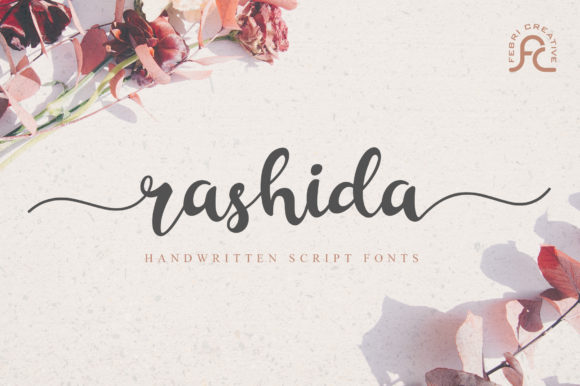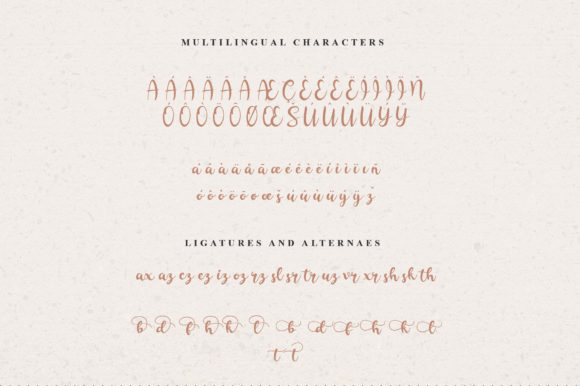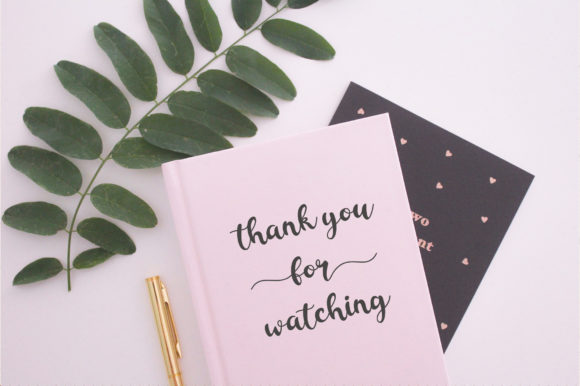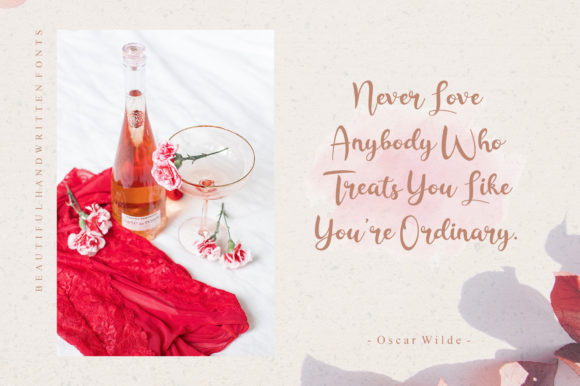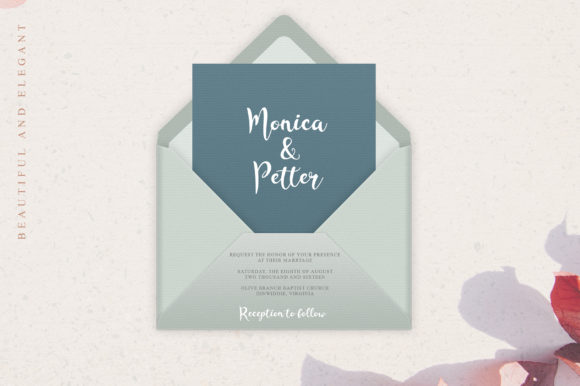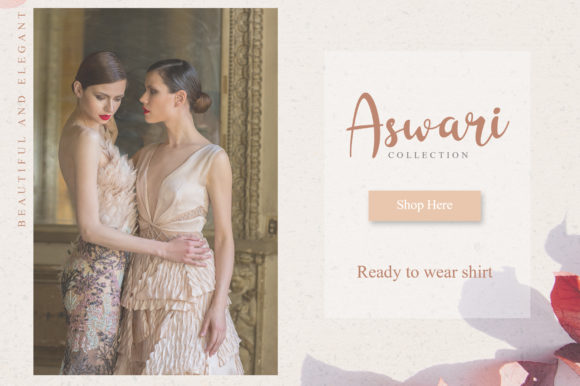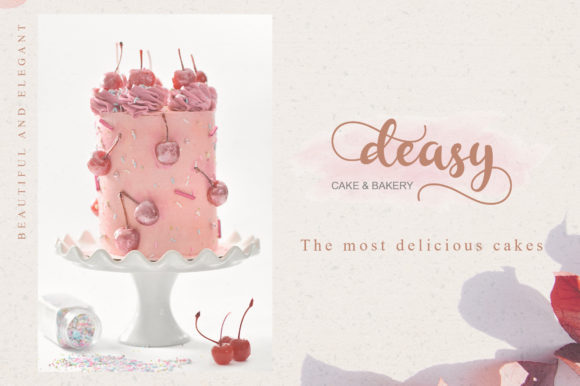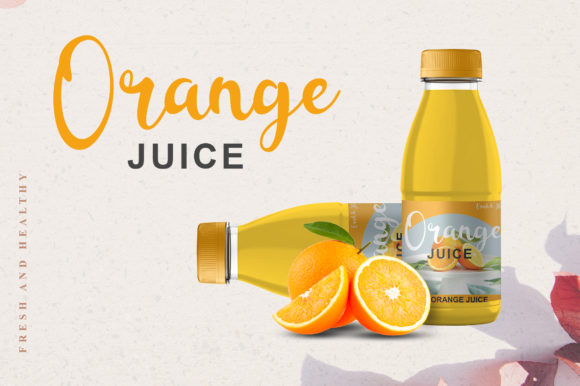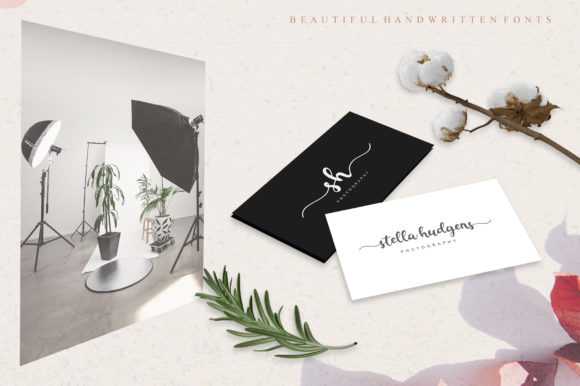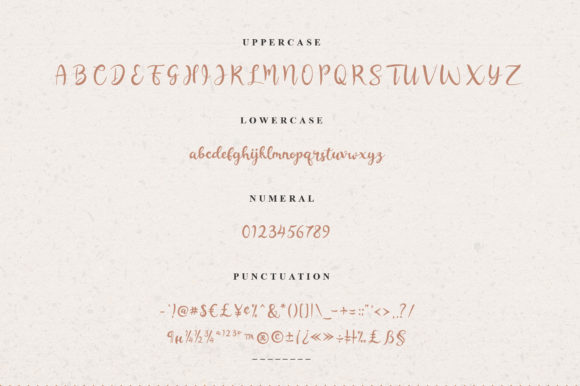
Rashida Font
About Rashida Font
Rashida is a stunning and lovely script with great legibility. It combines personality and style into one truly beautiful font!